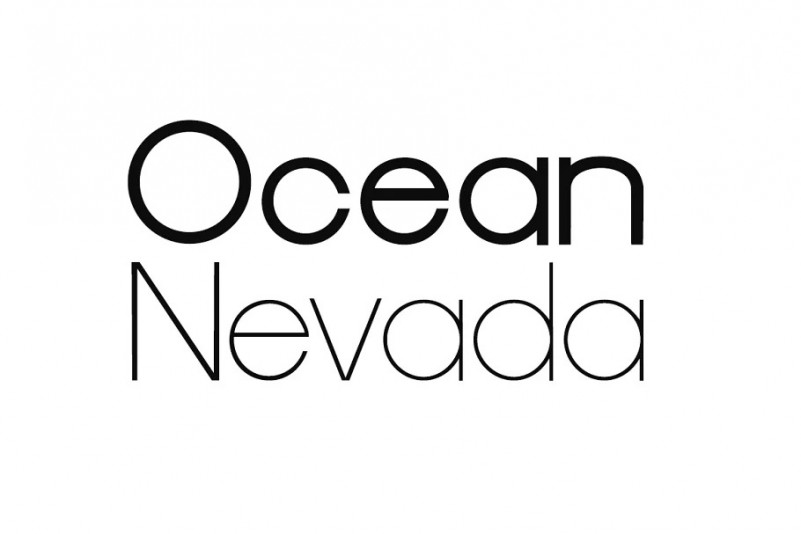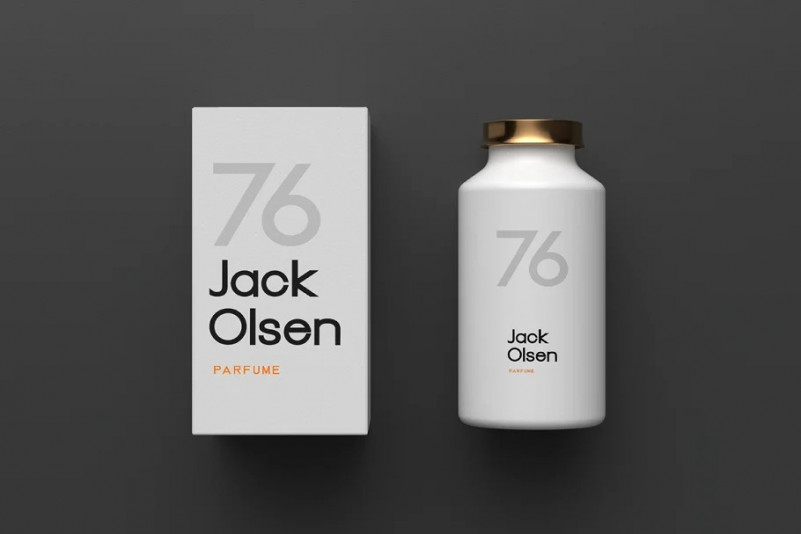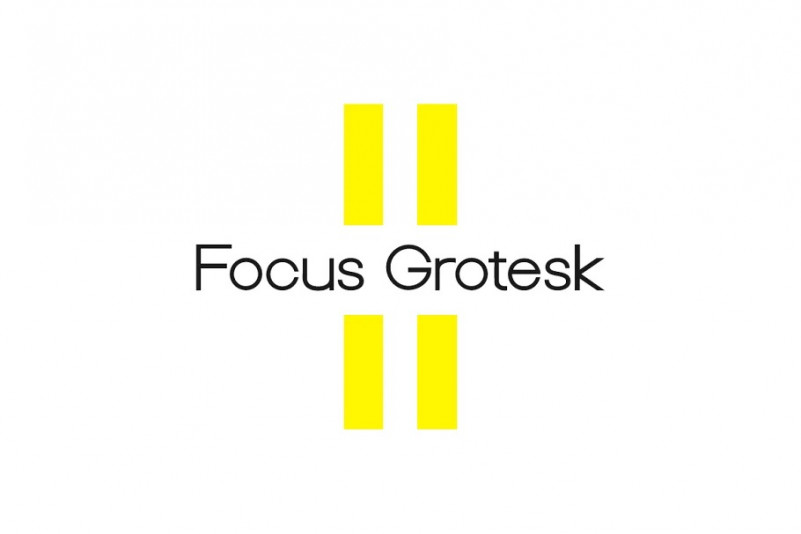
Focus Grotesk Font
Focus Grotesk – An authentic geometric Sans-Serif typeface, a perfect choice for both body text and headlines. The font is great for print, web, logo design, marketing graphics and branding purposes. The typeface is designed from handmade geometrical shapes and the developers performed extensive kerning to add utmost perfection to each glyph combinations.